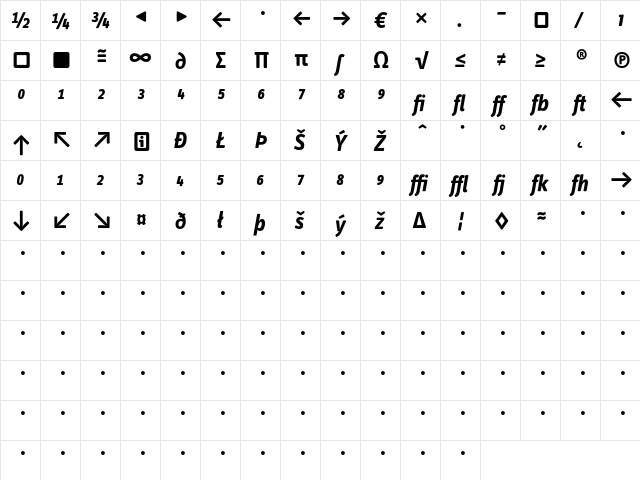
InfoDispBold ItalicExp Font Preview
InfoDispBold ItalicExp
Design Context for InfoDispBold Typeface
InfoDispBold offers clean, dependable letterforms without strong stylistic allegiance, making it a practical choice for designers who need flexibility. The dynamic lean of this cut emphasises speed and emphasis in any layout. Its bold stroke weight gives it real presence on the page.
Pro Tip: Use InfoDispBold for emphasis, pull quotes, and subheadings where its slanted energy can add rhythm to the layout.